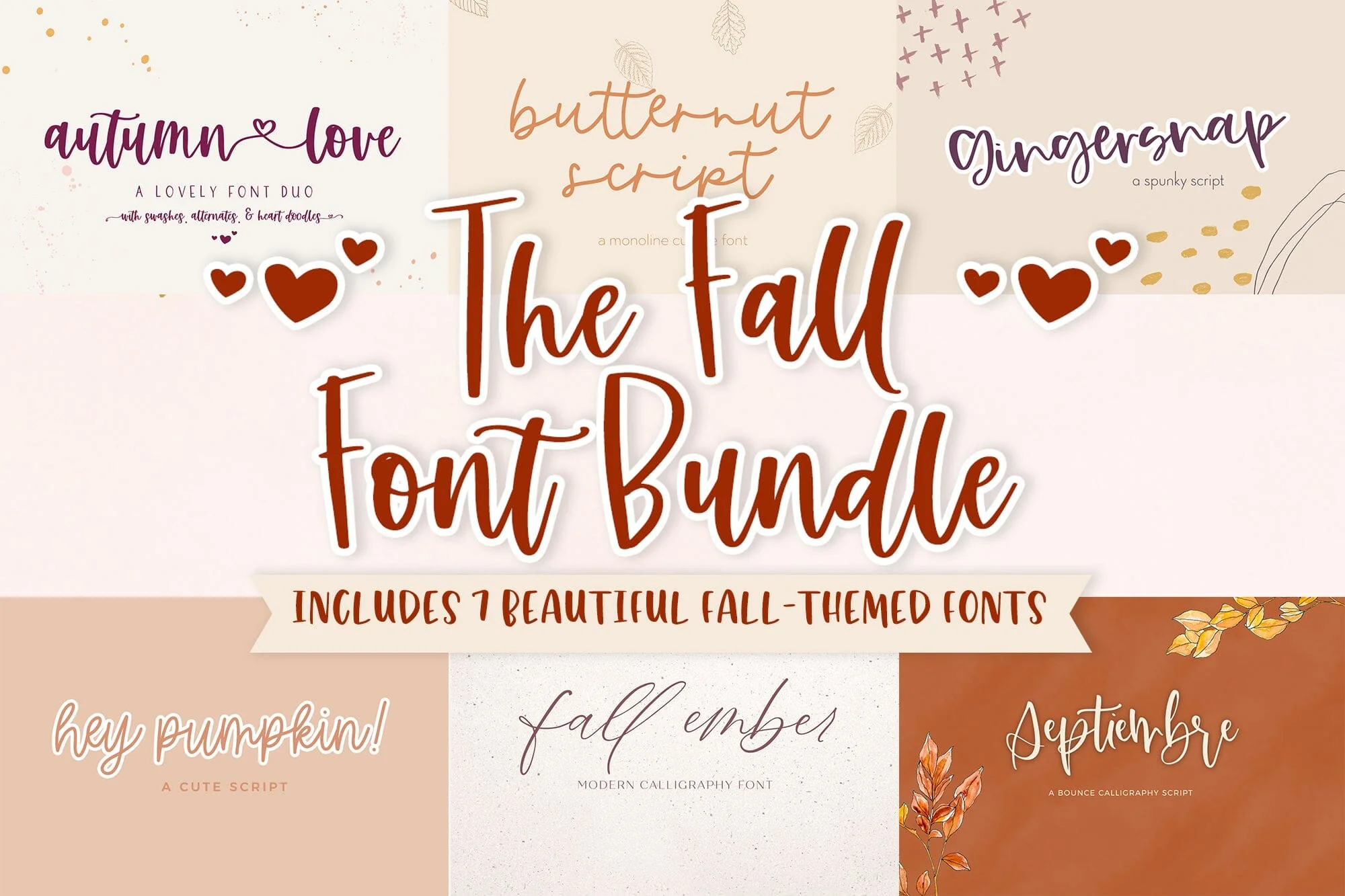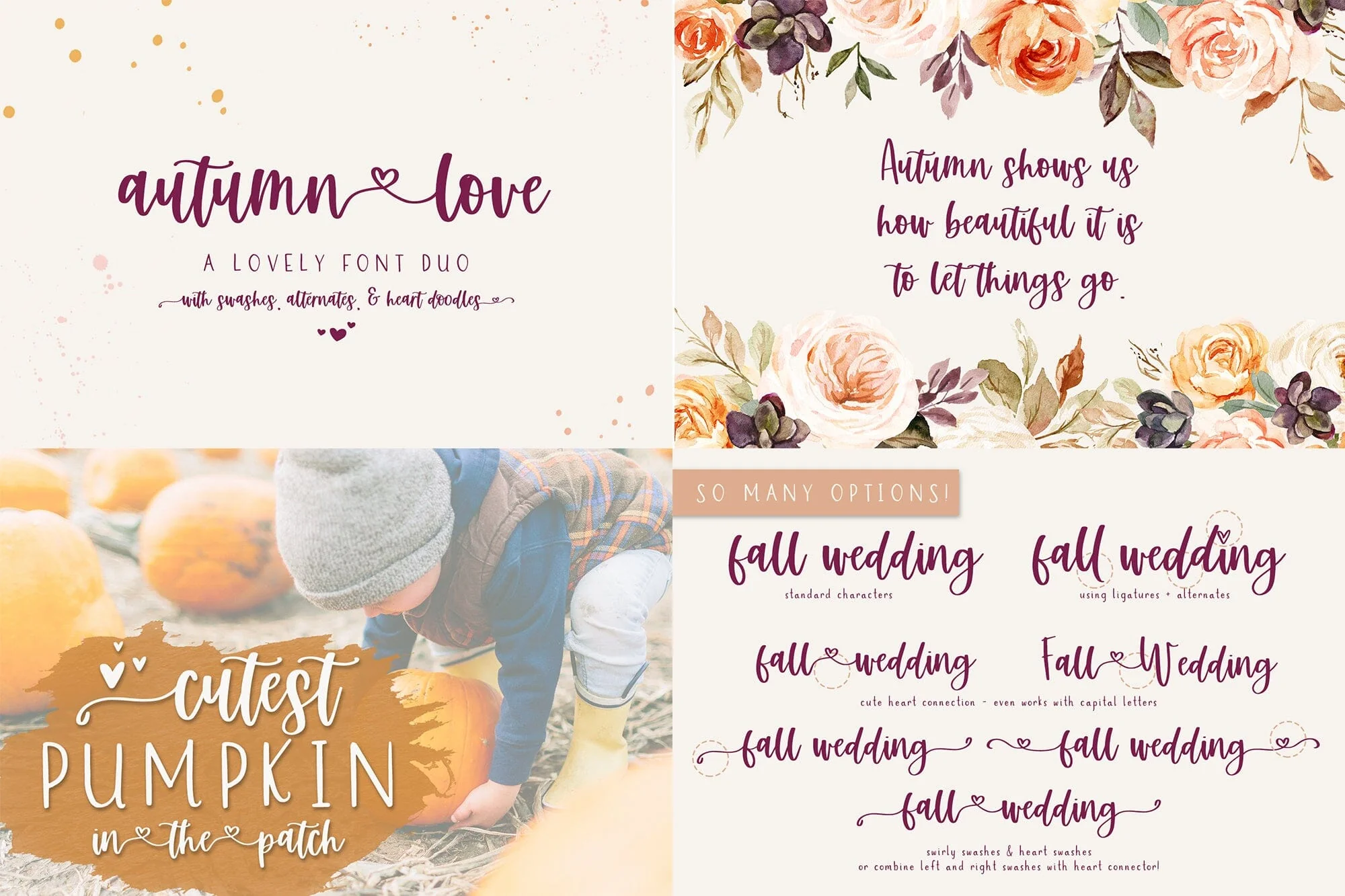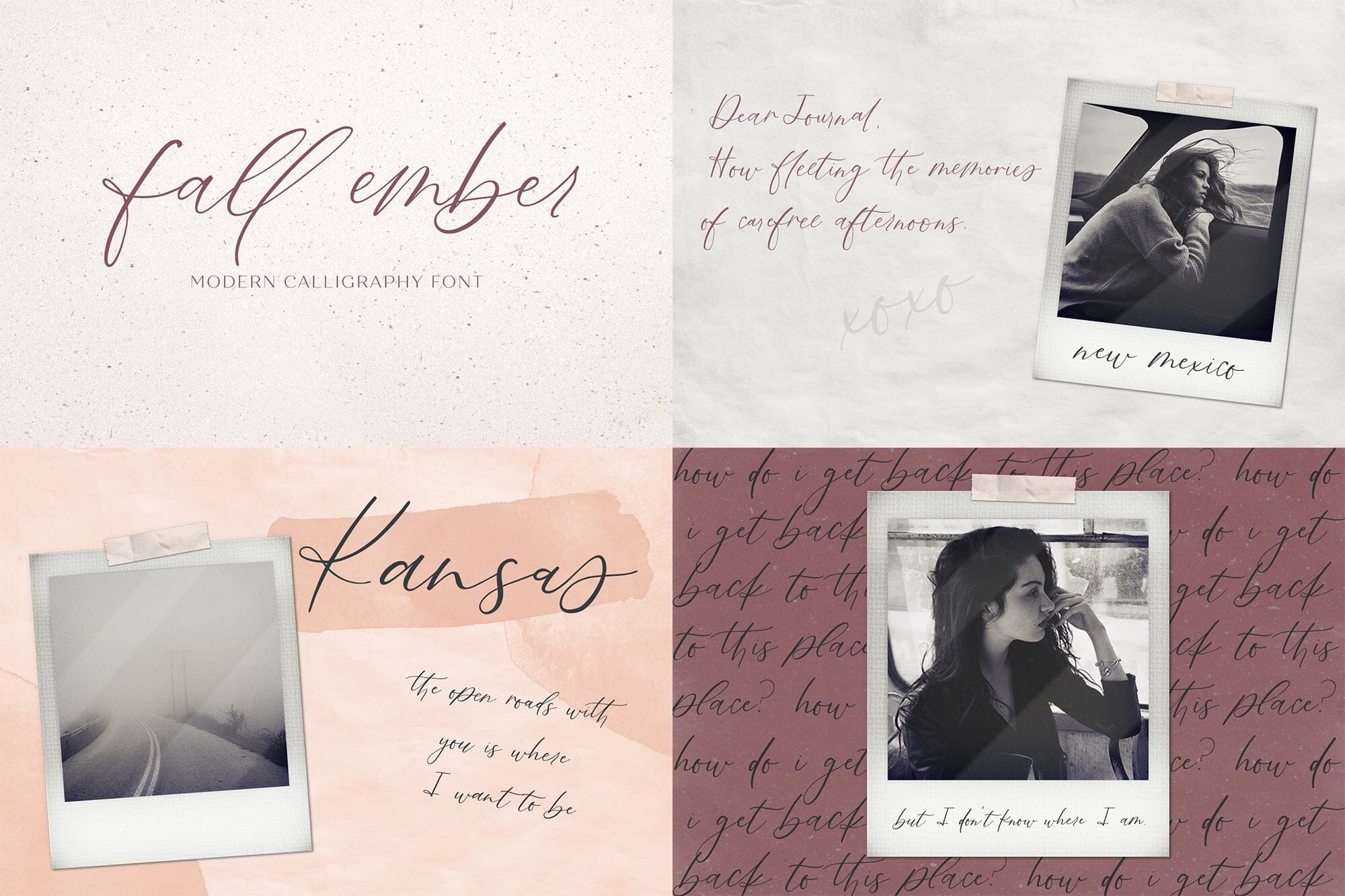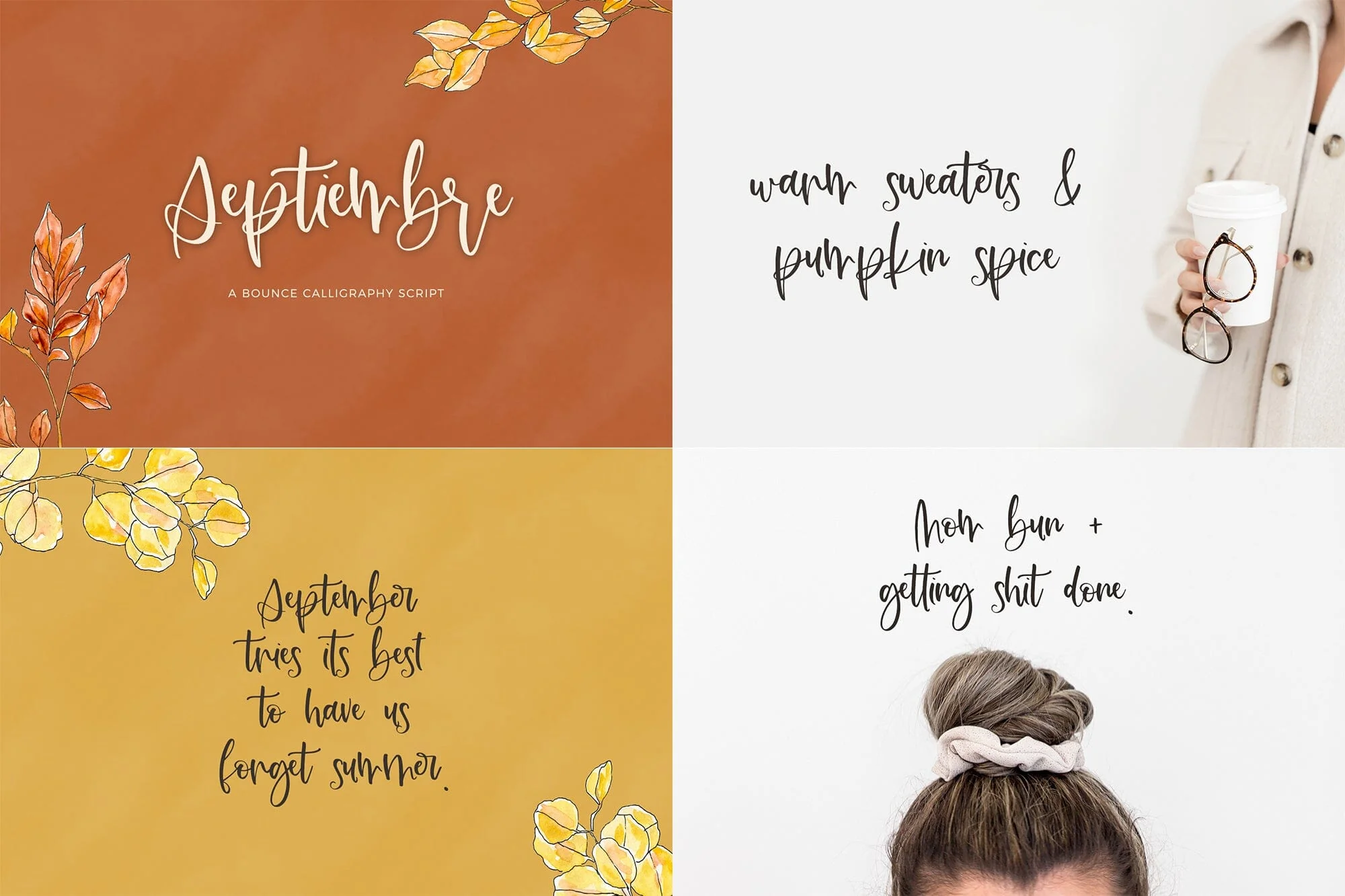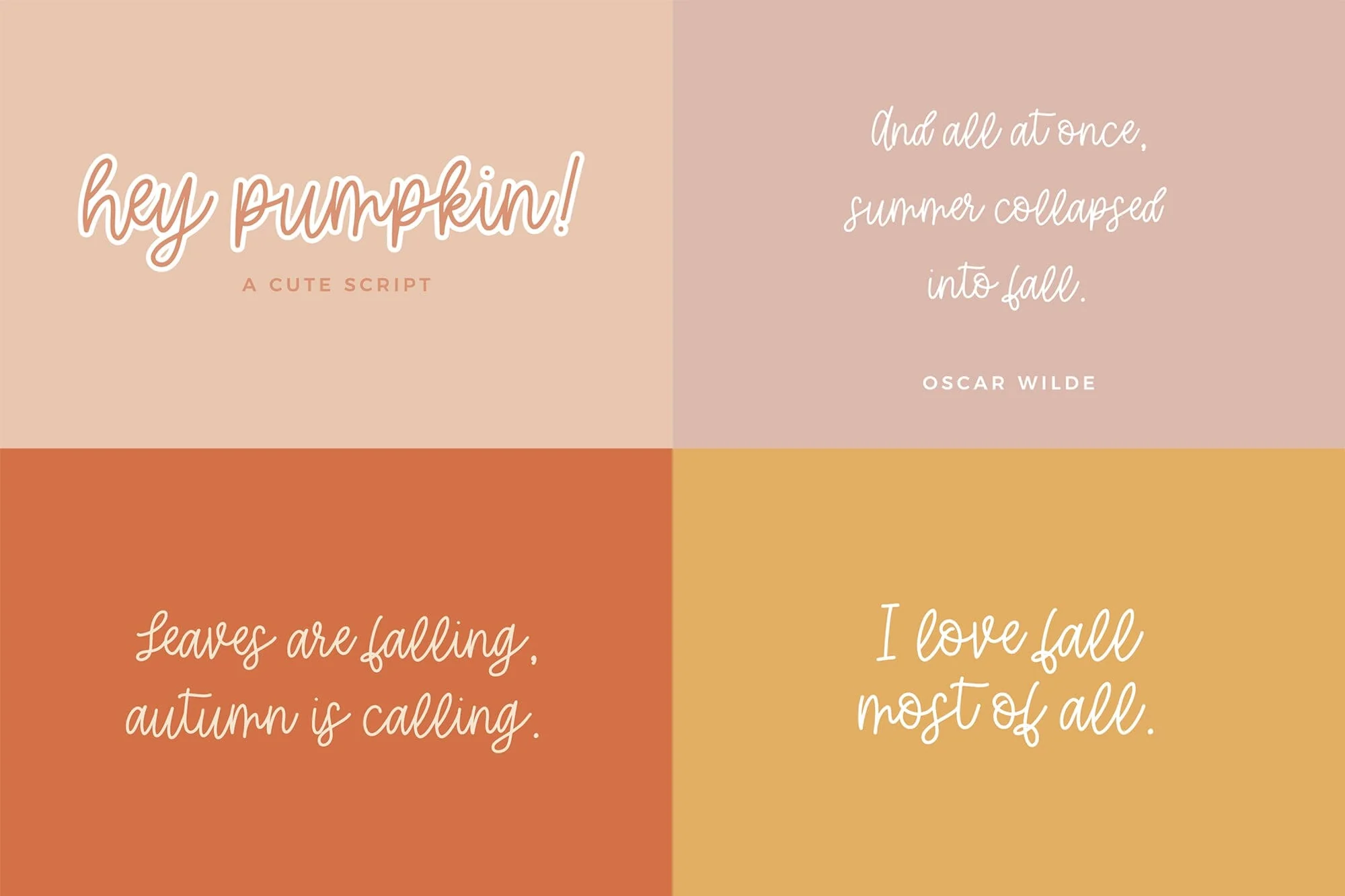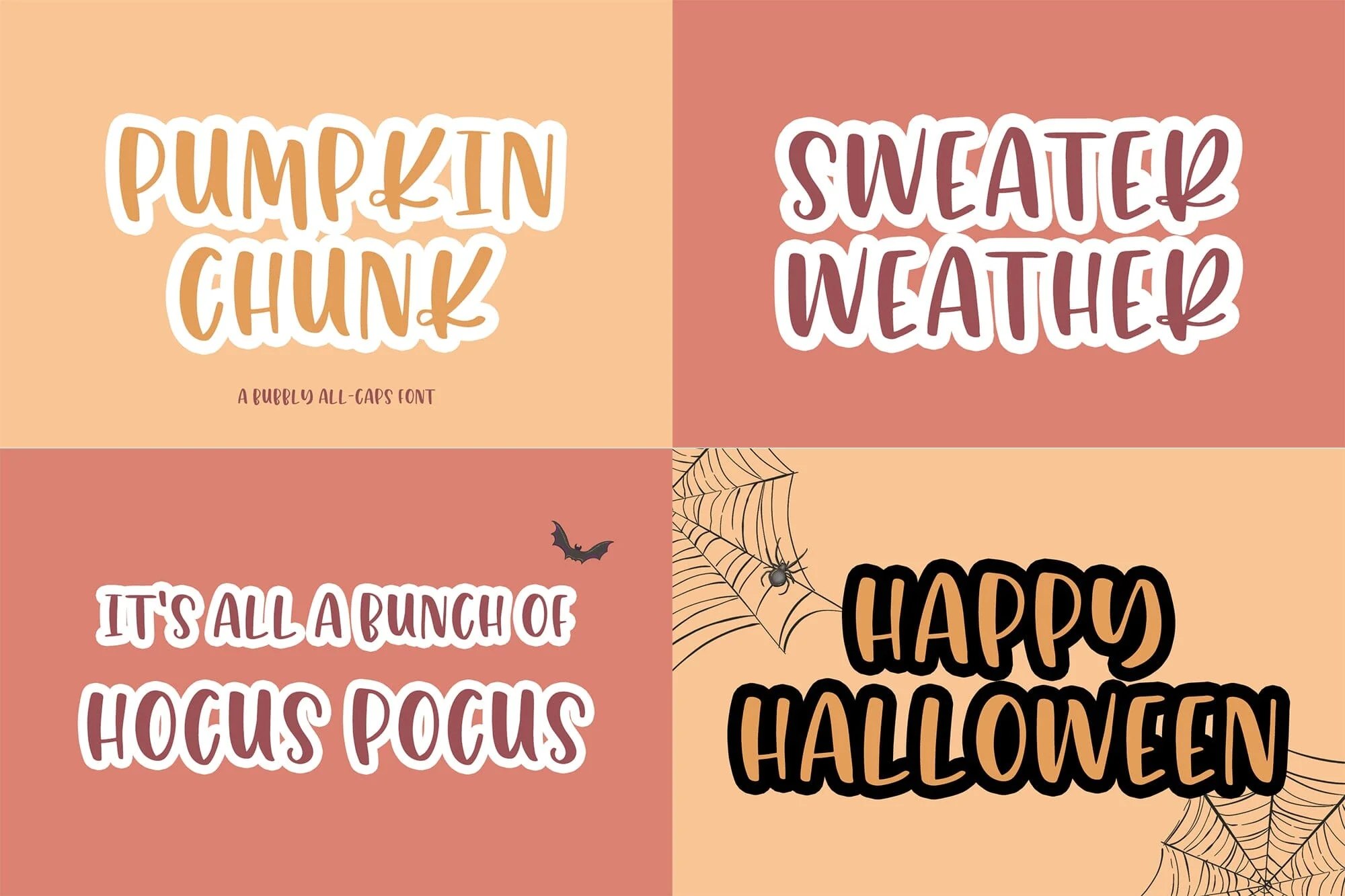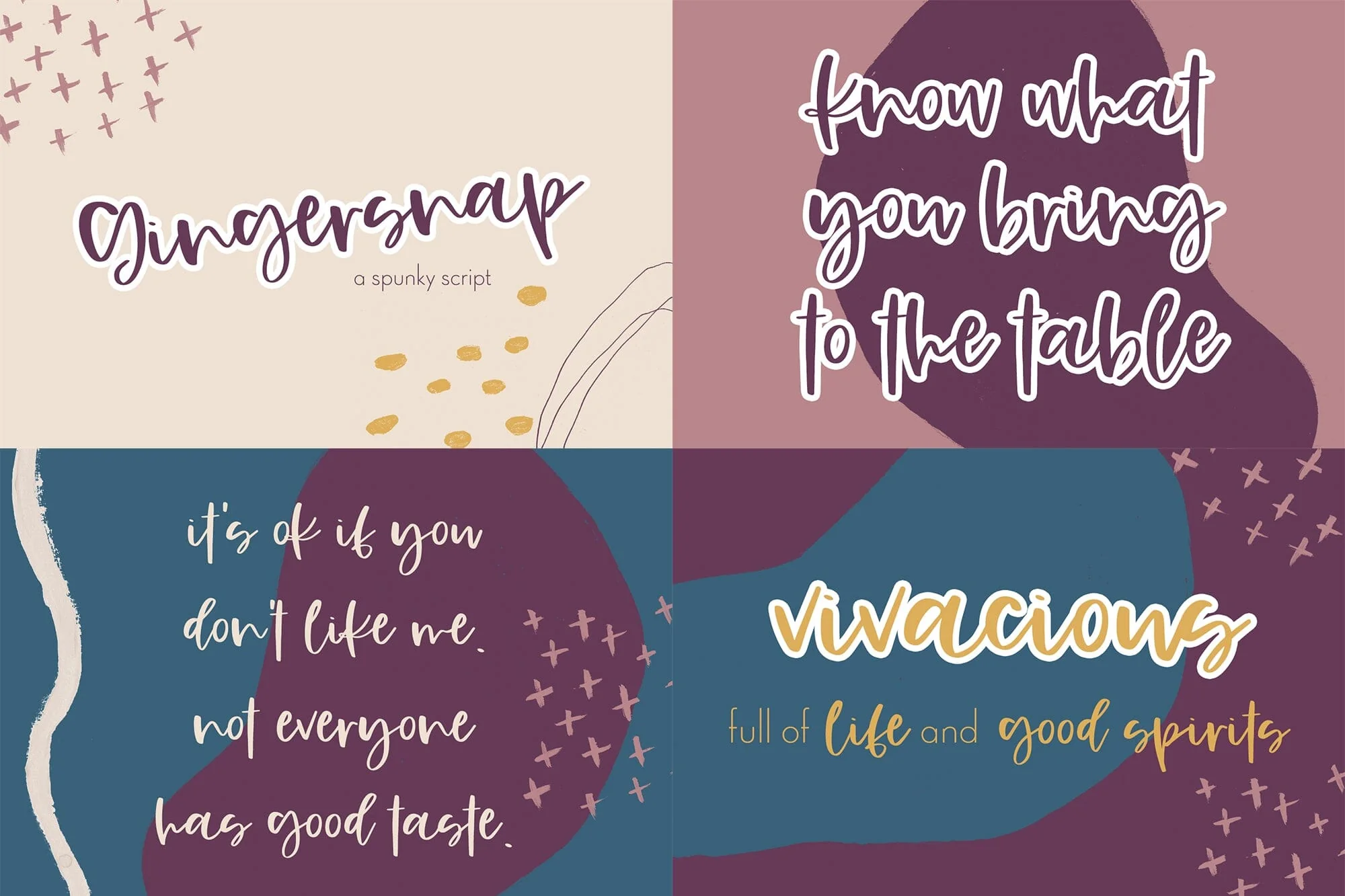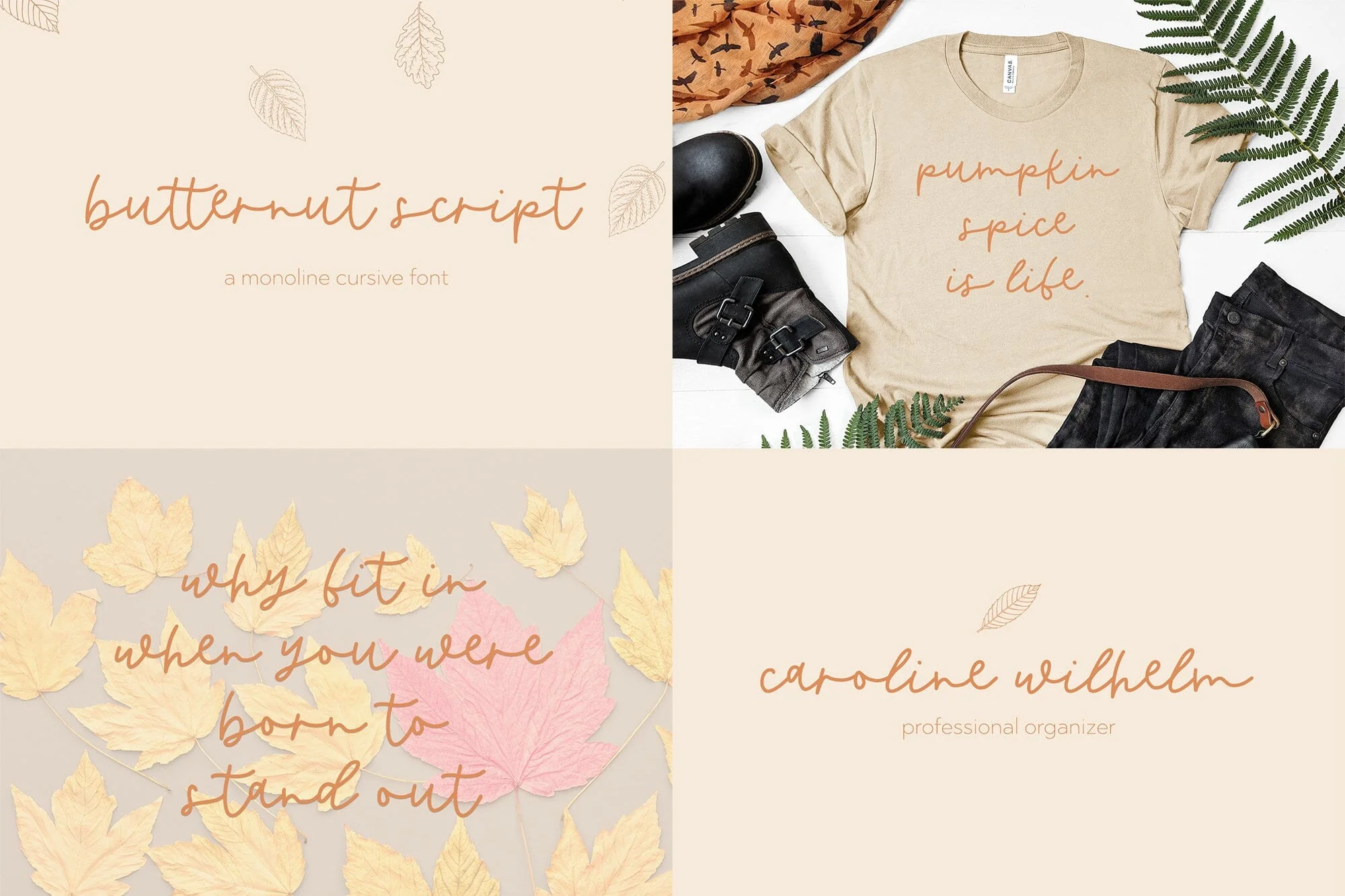
The Fall Font Bundle
Enjoy 7 fonts super fun script & sans fonts with a smooth edge, perfect for vinyl cutting & weeding projects of all types. All handlettered, these fonts will be perfect for logos & branding, website elements, quote graphics, and crafting projects on your Cricut or Silhouette machine!
This bundle includes:
- Autumn Love Script & Sans Duo
- Butternut Script
- Gingersnap Script
- Pumpkin Chunk Sans
- Septiembre Script
- Fall Ember Script
- Hey Pumpkin Script